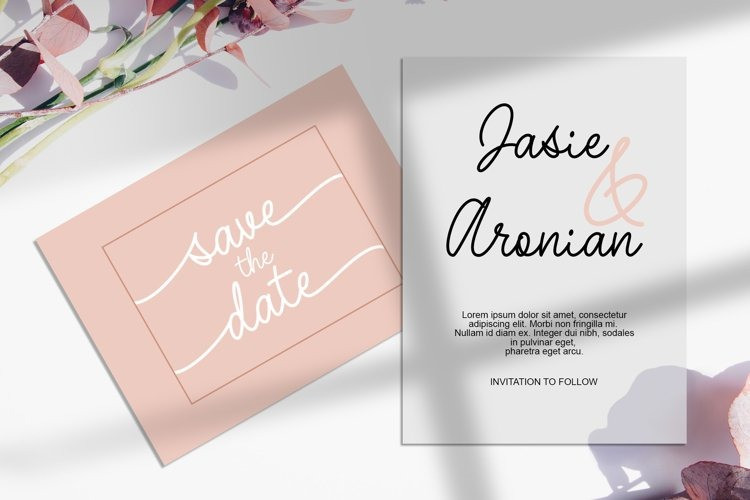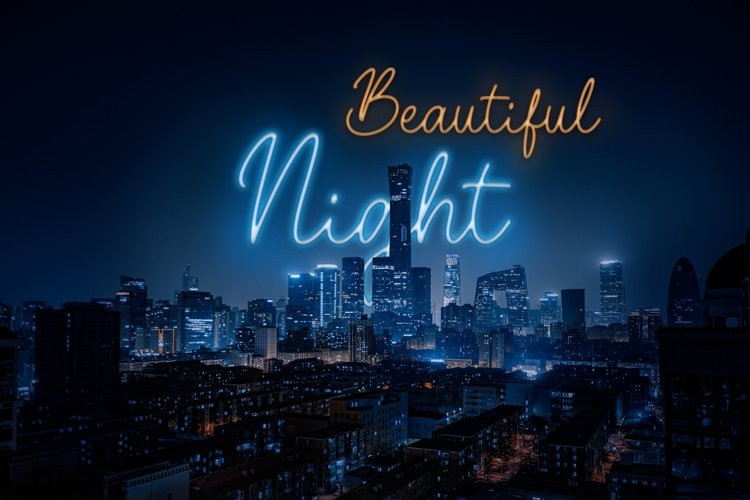
Khageats Calligraphy Font
Khageats is a fabulous script that will turn any design project into a true standout. Get inspired by its authentic and unique charm.